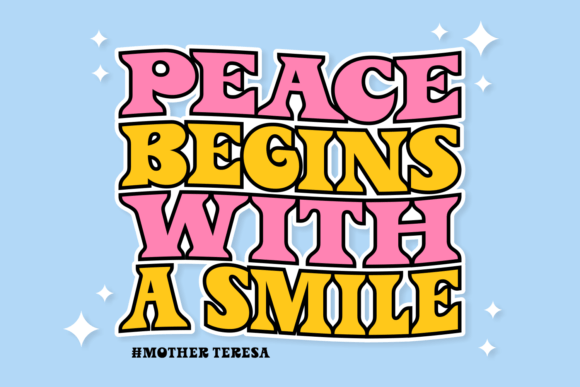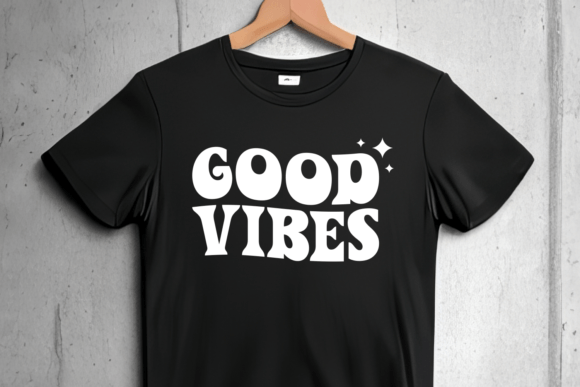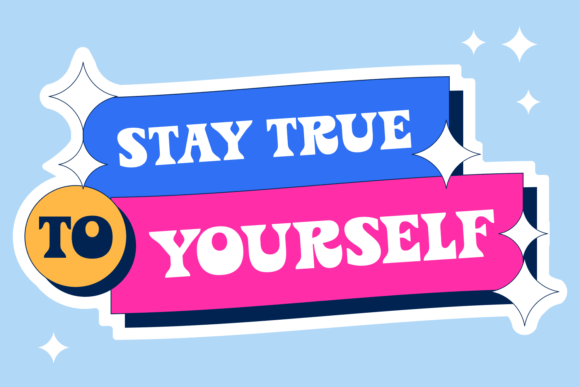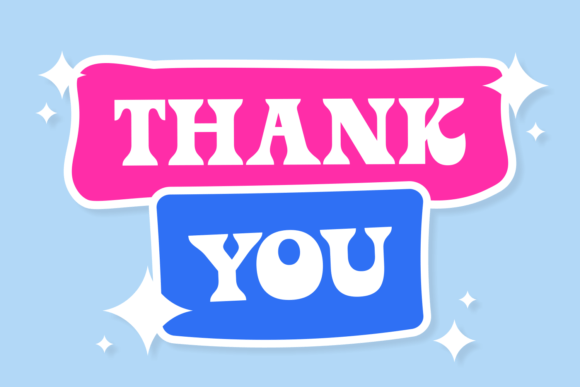
Introduction to Loope Retro Font
Loope Retro is a joyful retro-style display font.
Create charming typography designs with this beautiful and unique set of characters It looks fabulous on posters, apparel, kids’ t-shirts, covers, signage, banners, titles, and more.
Loope Retro Font offers exceptional quality and versatility, making it a valuable addition to your design toolkit. Whether you’re creating for personal projects or commercial use, Loope Retro Font delivers professional results.